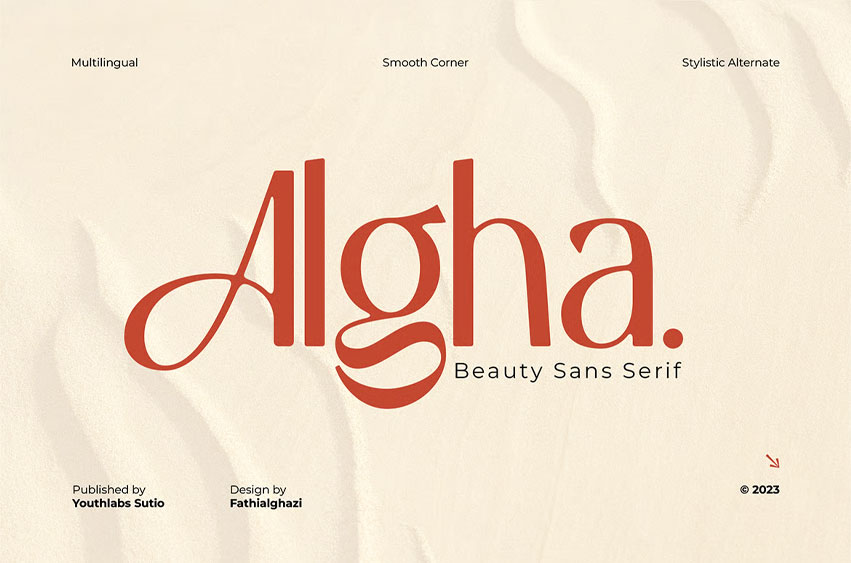
Algha Font
Algha Font is inspired by cottagecore, which prioritizes beauty and elegance. Algha has an obtuse angle, which means that beauty is not confined to the point of view.
Algha is suitable for your needs that require beauty. Algha can be worn simply or with ornaments.
What’s The Feature?
• 3 Stylistic Alternate Set
• Stylistic Ligature
• Smooth Corner